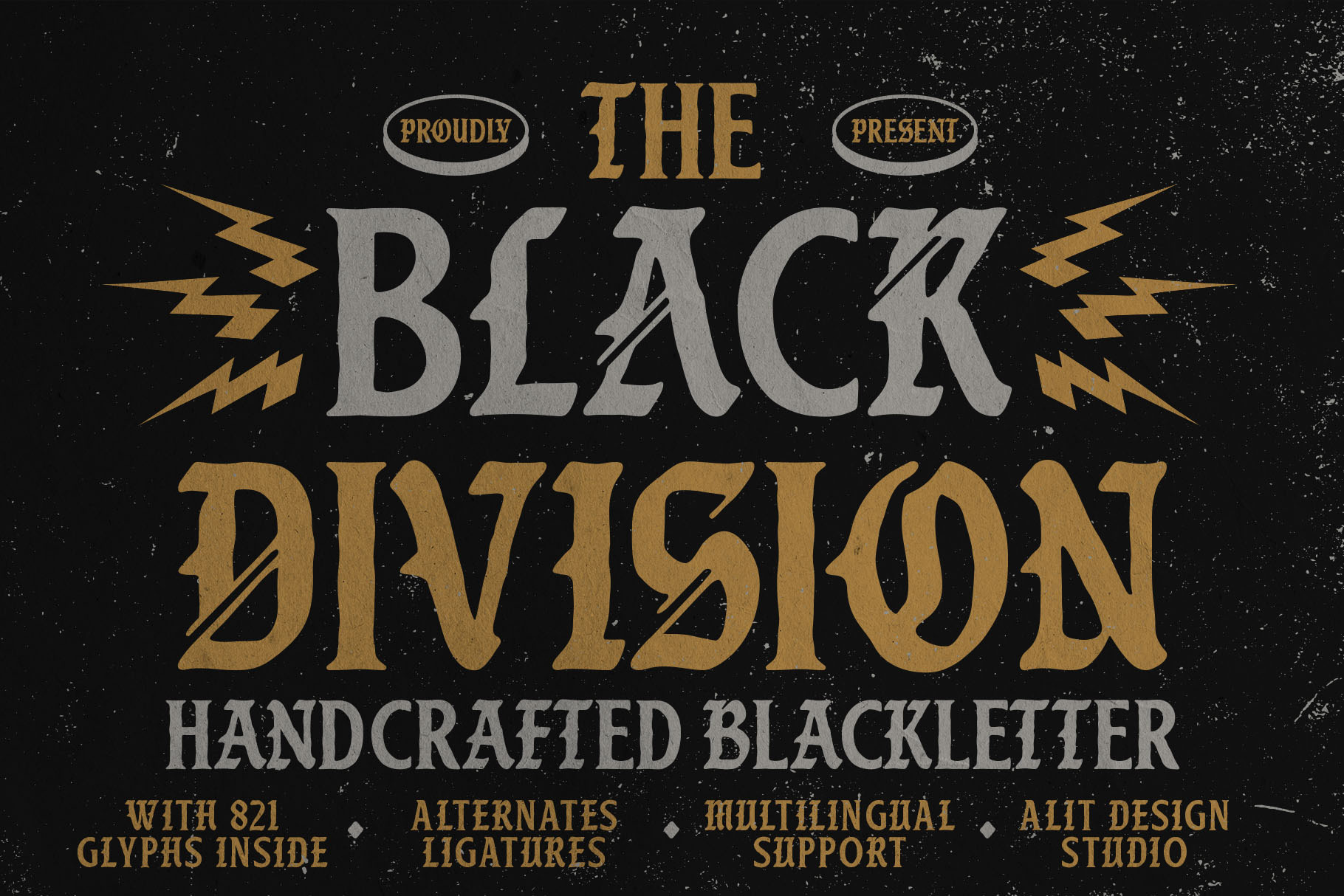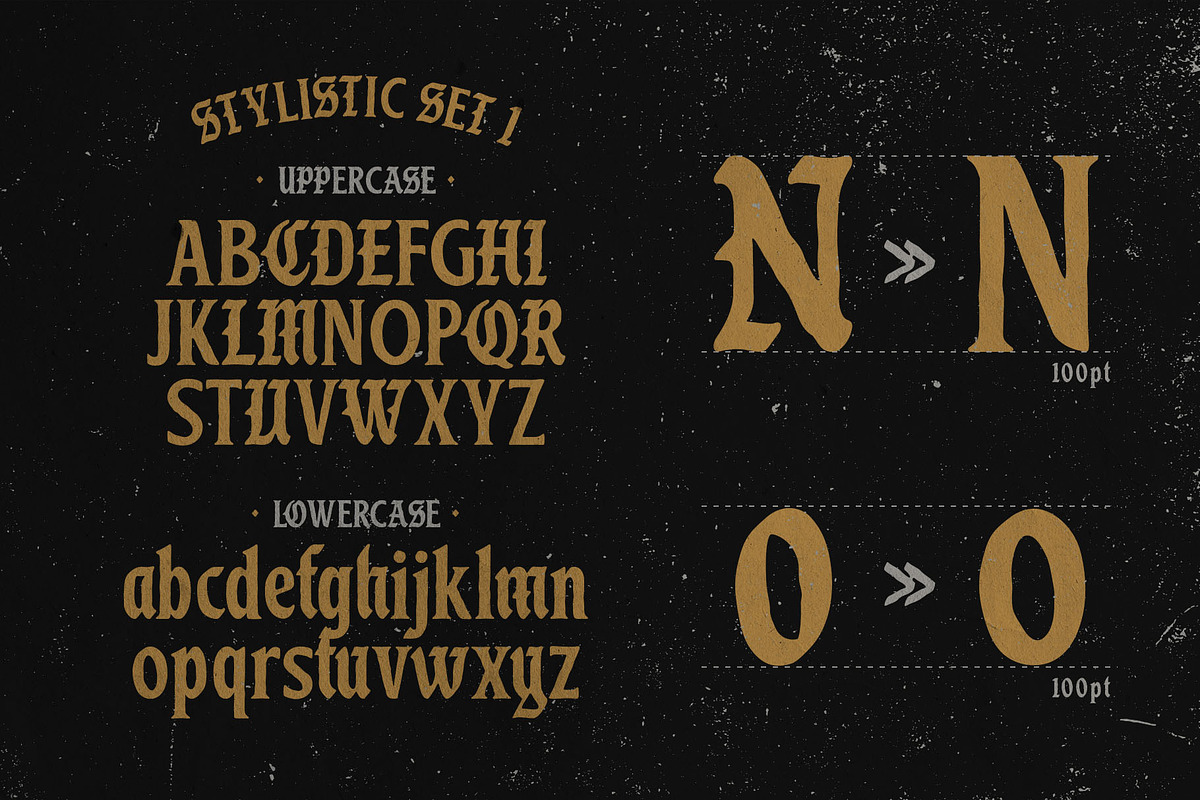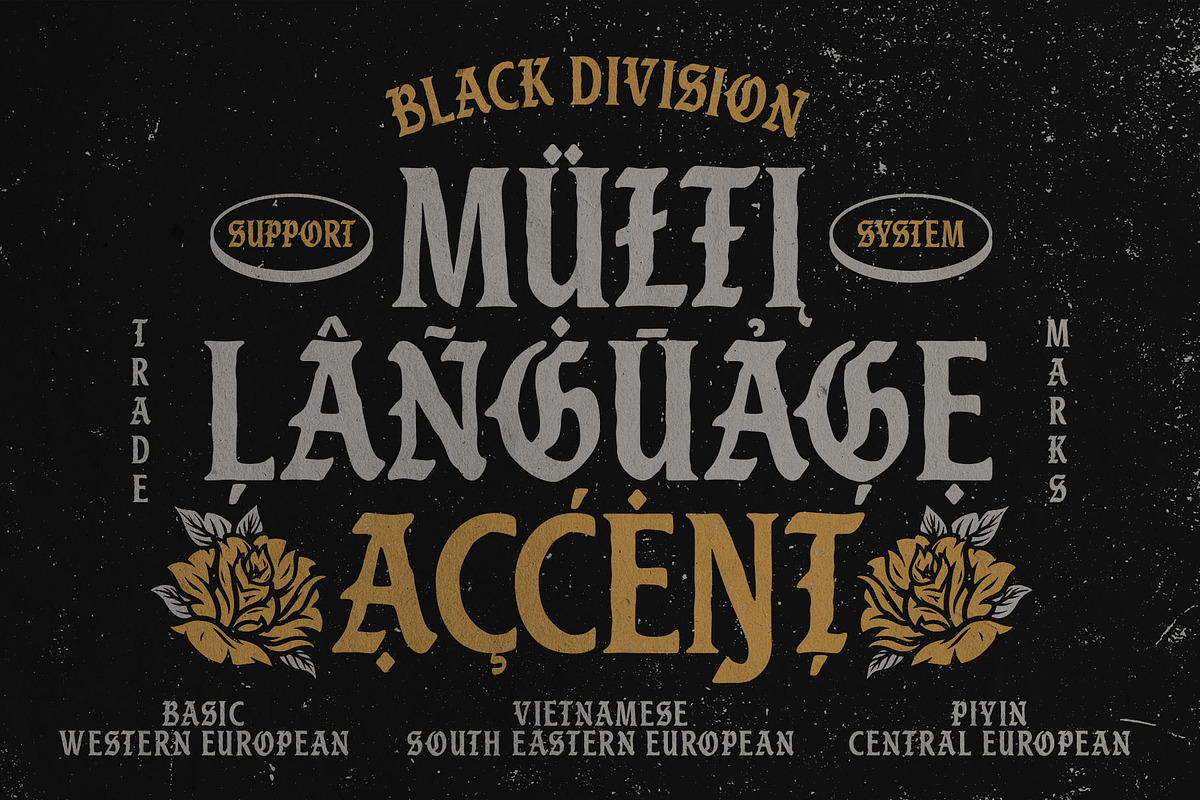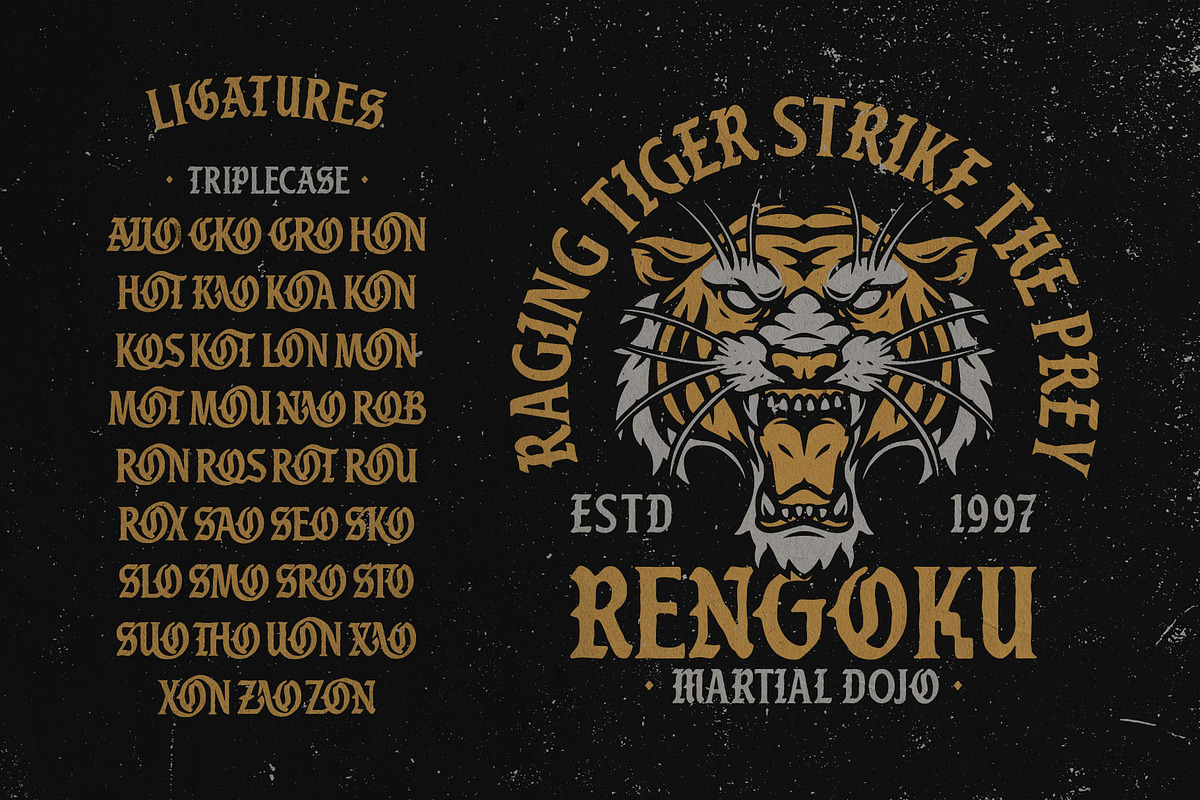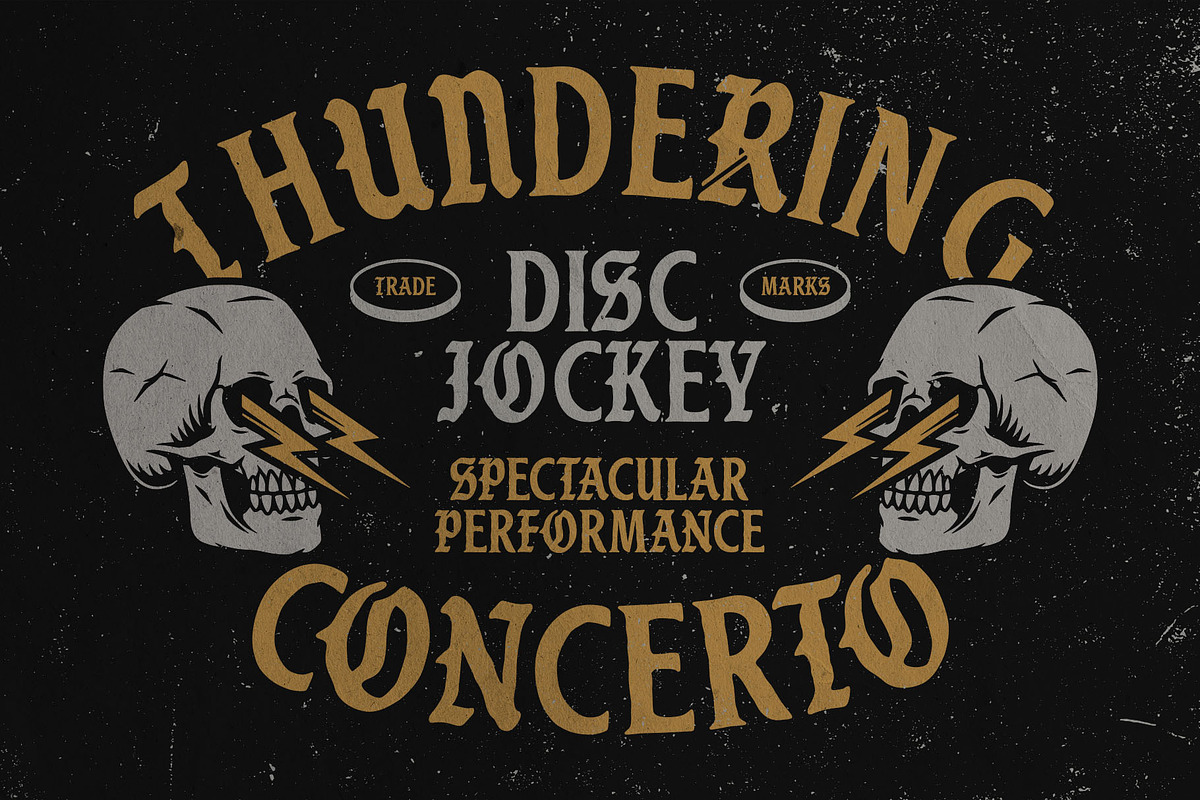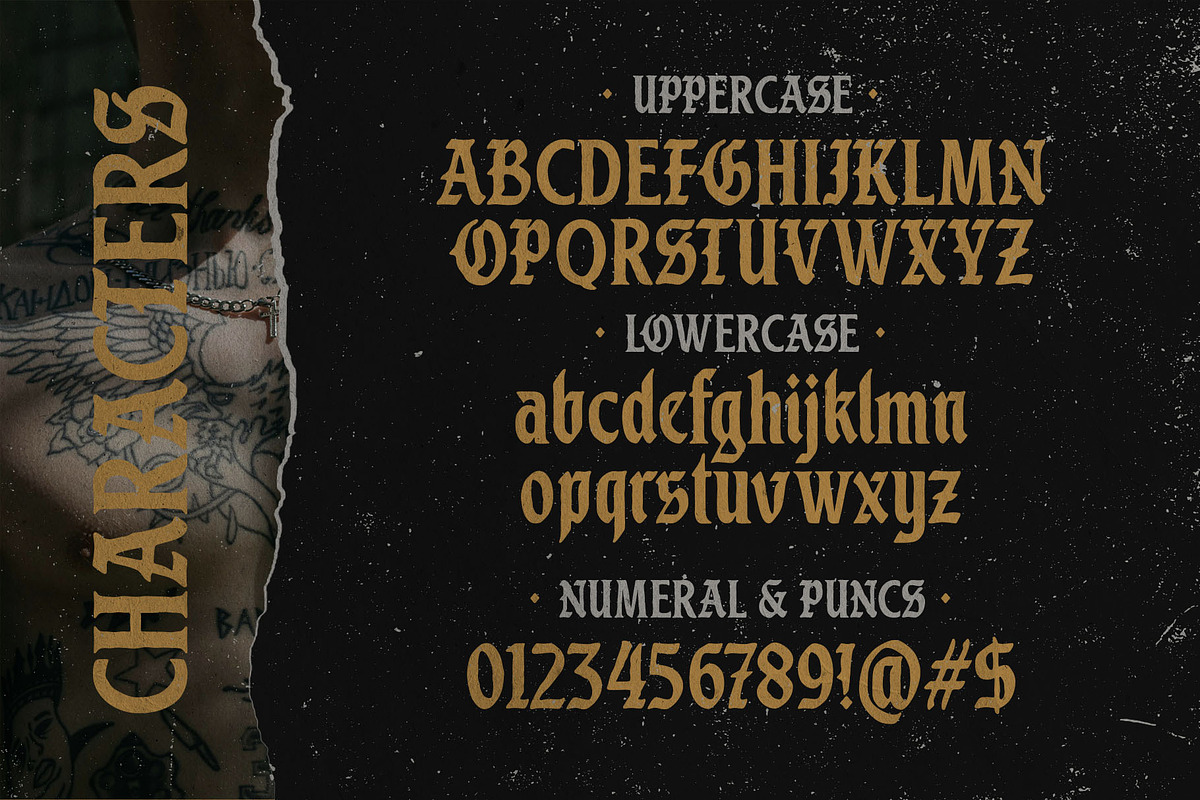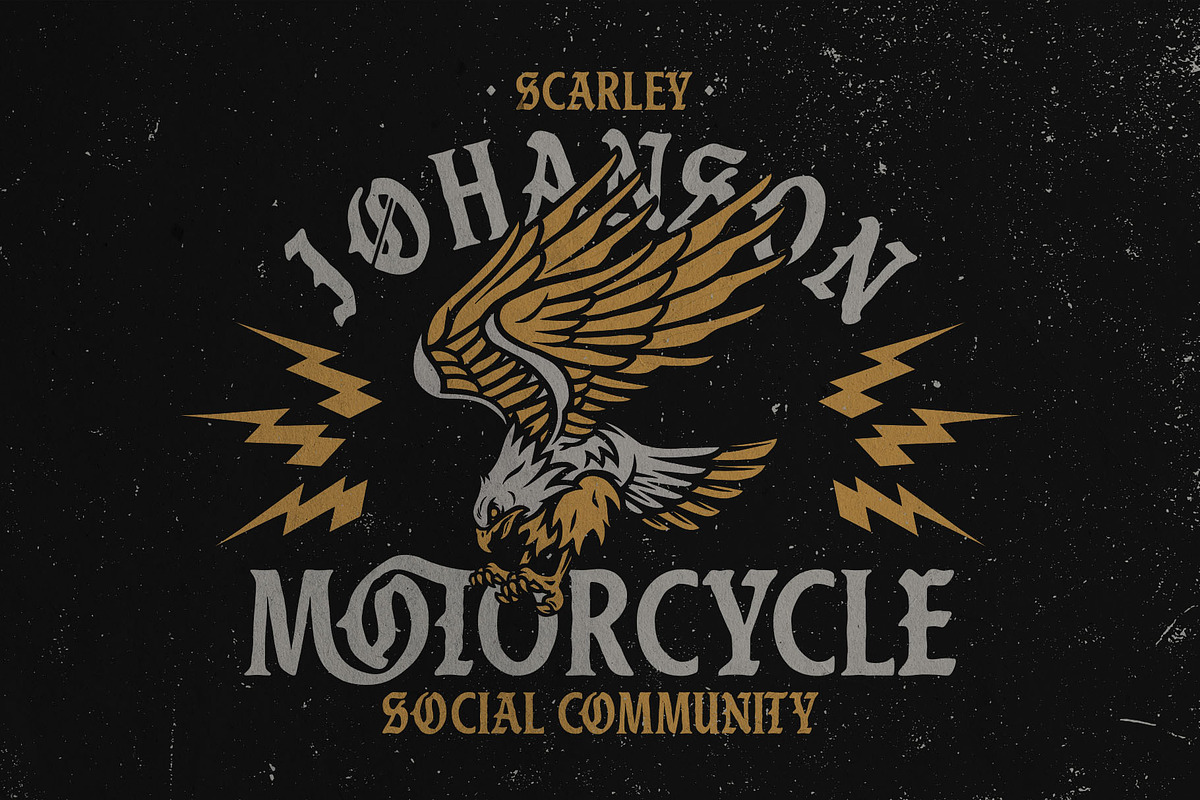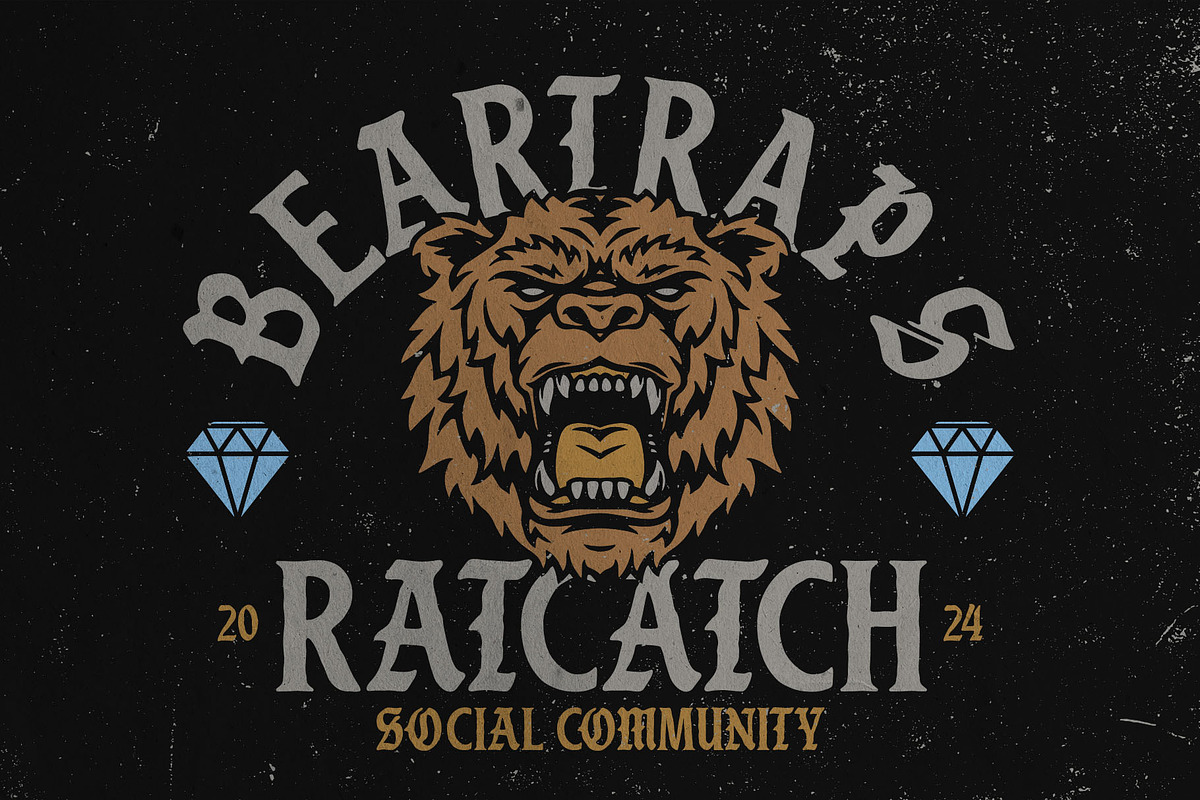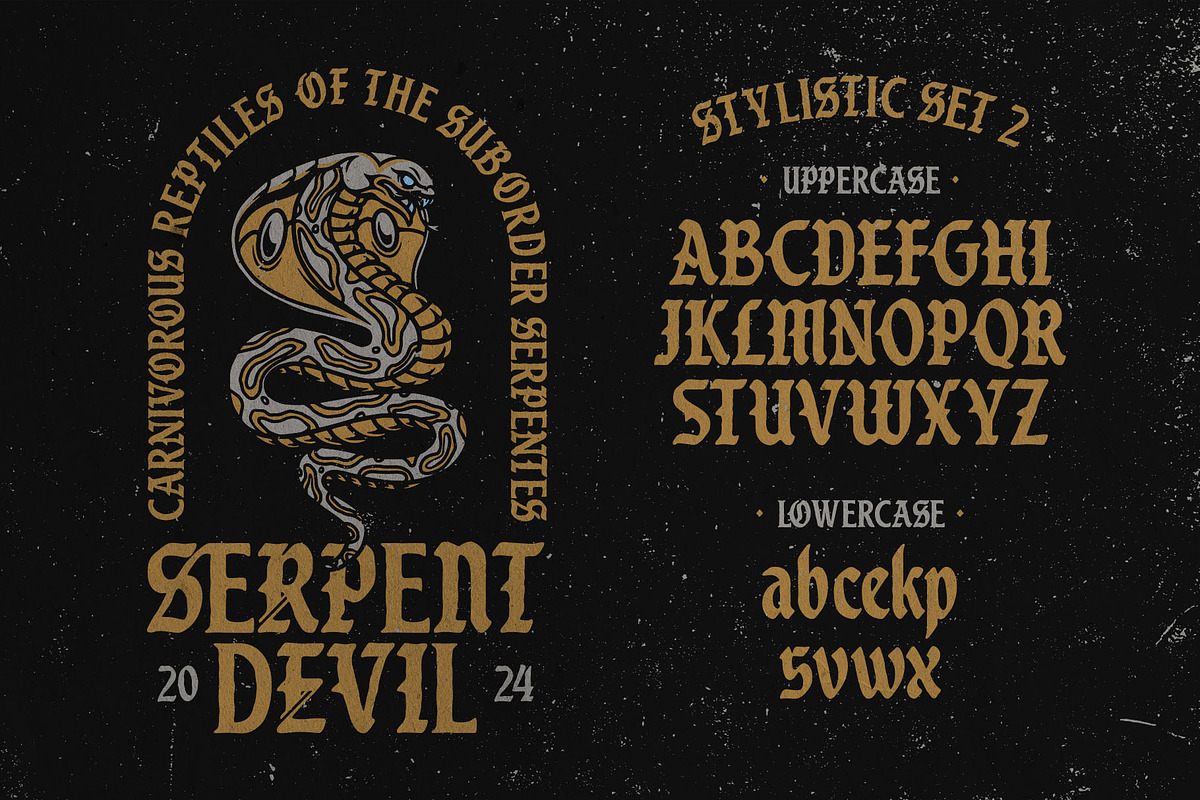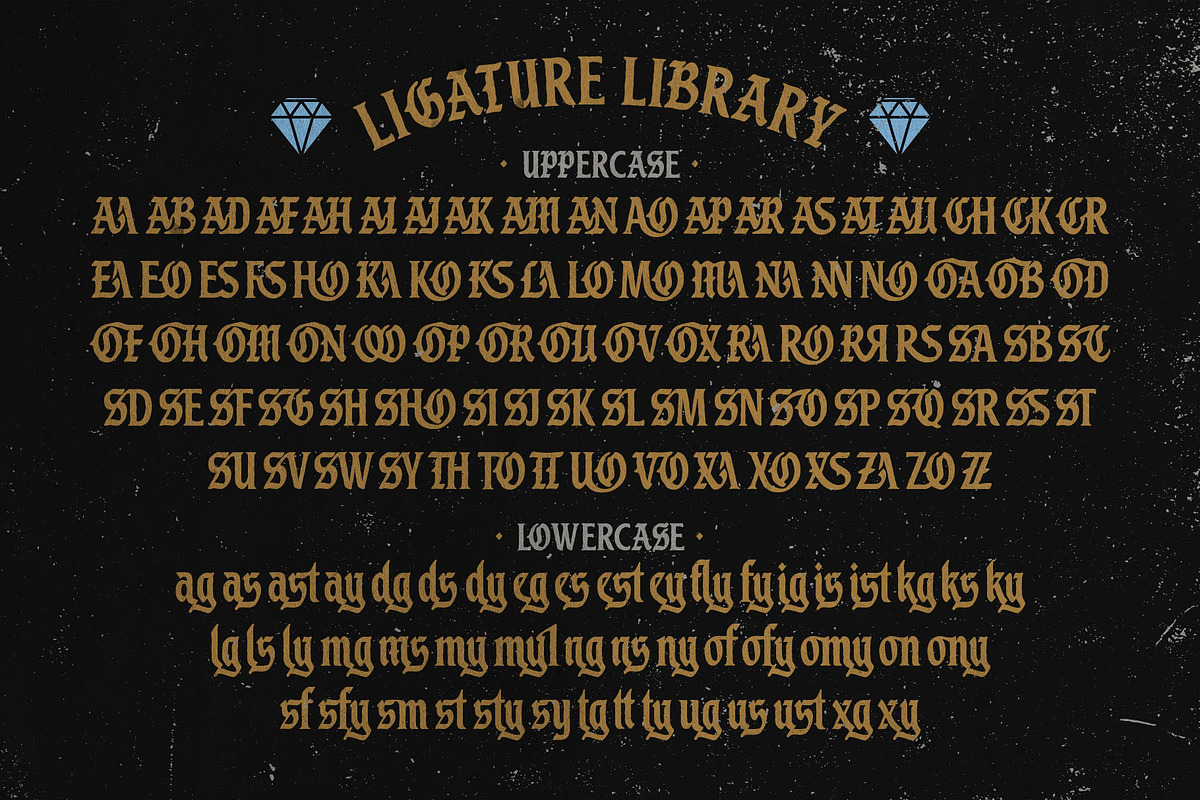
Black Division Typeface
Black Division Typeface is a bold and versatile blackletter font that brings a raw, vintage flair to your designs. Its rough, distressed texture and classic blackletter structure make it perfect for projects that demand an old-world, gothic aesthetic with a modern, gritty twist. Whether you’re designing for branding, packaging, apparel, or signage, this font’s unique character will help your work stand out with a powerful, dramatic presence.
821 Characters: A vast collection of characters ensures that you have all the tools you need for any design. This includes uppercase, lowercase, numbers, punctuation, symbols, and more, making it highly adaptable for both simple and complex layouts.
Alternate Characters: Multiple stylistic alternates offer even more variety, allowing you to switch up letterforms to create truly unique designs. These alternates enhance the font’s flexibility, perfect for logos, titles, and wordmarks where customization is key.
Ligatures: Specially designed ligatures create seamless letter combinations that bring a polished, hand-crafted feel to your typography. These ligatures help you achieve a smooth, flowing look in your text while maintaining the font’s rugged, vintage aesthetic.
Multilingual Support: With comprehensive multilingual support, Black Division supports a wide array of languages, including those that use accented characters. This makes it a versatile choice for global projects, ensuring that your typography looks cohesive and professional in any language.
Design Inspiration: Inspired by historical blackletter typefaces used in old manuscripts, signage, and traditional printing, Black Division revives the spirit of medieval calligraphy while giving it a fresh, contemporary twist. Its rough, textured finish evokes a sense of authenticity and craftsmanship, making it an ideal choice for vintage-themed projects, tattoo designs, posters, and anything requiring a bold, old-world touch.
- Branding and Logos
- Vintage Packaging
- Posters and Banners
- Merchandise and Apparel
- Album Covers
- Book Titles
- Tattoo Designs
- Wedding Invitations with a Gothic Theme
Why Choose Black Division Typeface? If you’re looking for a font that marries the tradition of historic blackletter with the modern edge of rough textures, Black Division Typeface is your perfect match. Its combination of detailed craftsmanship, extensive character set, and accessibility makes it a powerful tool in any designer’s arsenal. Use it to give your projects an impactful, dramatic style with a nod to the past.
Unleash the boldness of Black Division Typeface in your next design project, where vintage meets modern for a truly timeless statement.